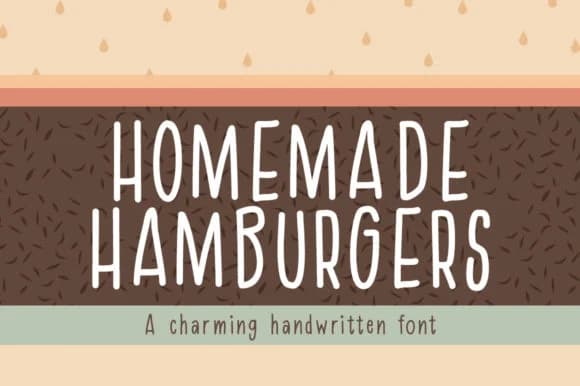
Homemade Hamburgers Font by Quirky Queen Media is a casual handwritten typeface that captures the charm of hand-lettered signage. The informal, sketchy letterforms bring personality to branding work without feeling forced or overly trendy. There's genuine warmth here that works particularly well for food-related projects: think bakery menus, cafΓ© packaging, and rustic restaurant signage where the aesthetic needs to feel approachable rather than polished.
Beyond food applications, the typeface works wherever you want viewers to feel they're encountering something genuinely hand-crafted. Wedding invitations gain a personal quality from these letterforms. Etsy product labels and small batch packaging for boutique items also shine here, where the handmade aesthetic speaks to your audience. DIY gift tags, custom labels, and casual greeting cards all get more character from this typeface than from something overly refined, which is exactly the point.
What makes this typeface work is its restraint. It doesn't oversell the handmade concept or tip into territory that feels kitschy. The lettering stays legible at smaller sizes, which means applications remain functional even when the design feels decidedly personal. If your project calls for genuine, understated warmth rather than maximum visual flair, grab Homemade Hamburgers Font from Creative Fabrica.
Homemade Hamburgers Font is a script font that shines as a display or heading face. Pair it with a clean sans-serif or serif font for body text β the contrast creates a clear hierarchy while the two styles stay balanced and easy to read.